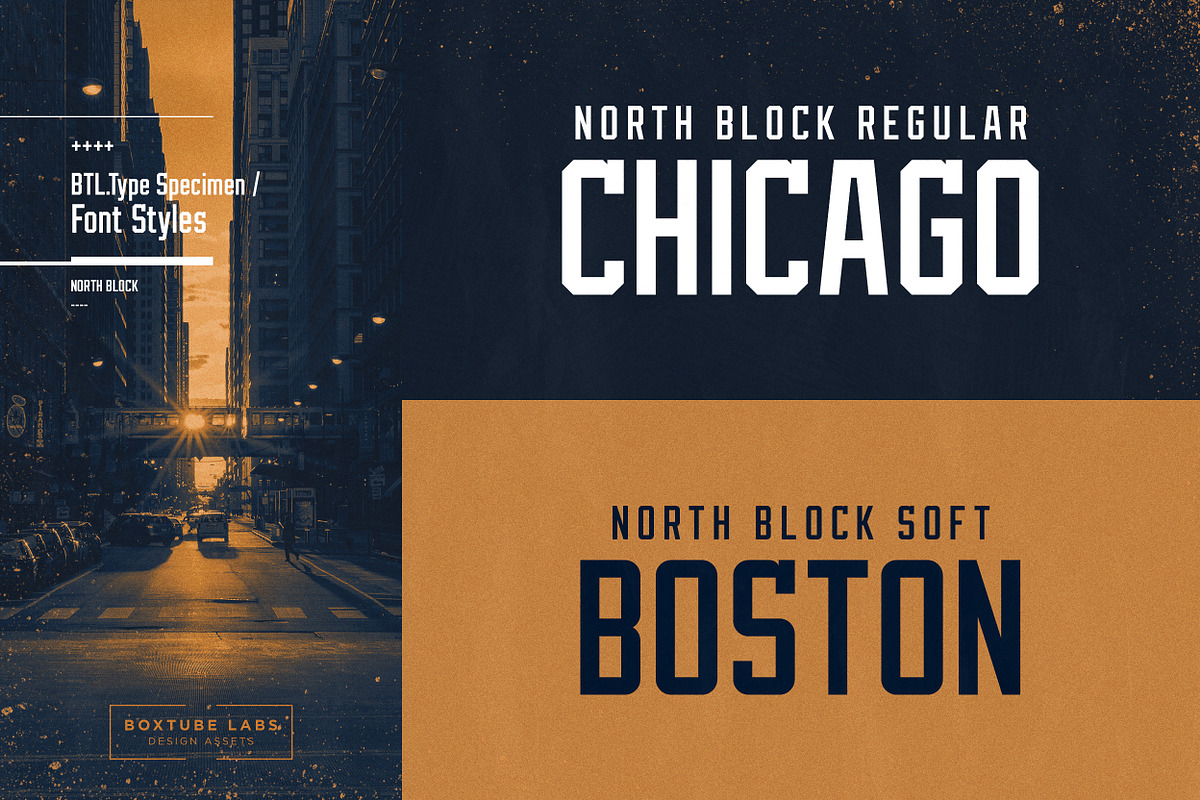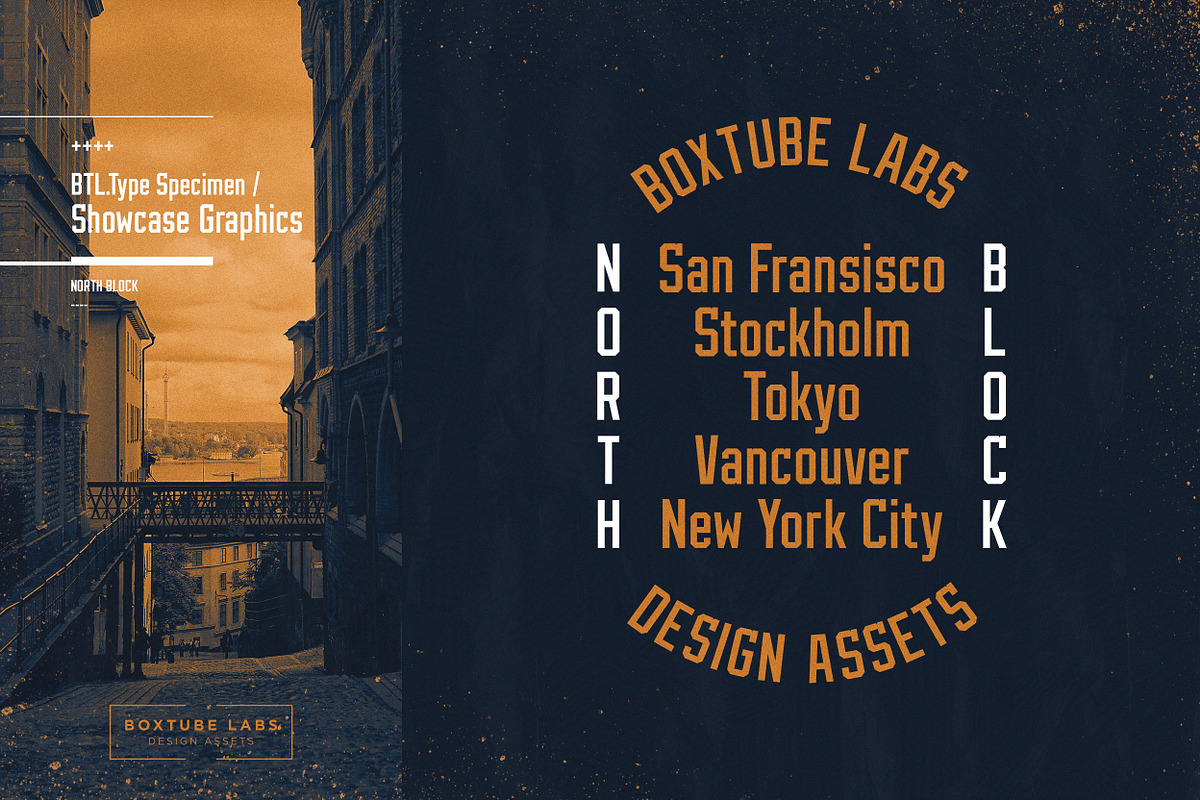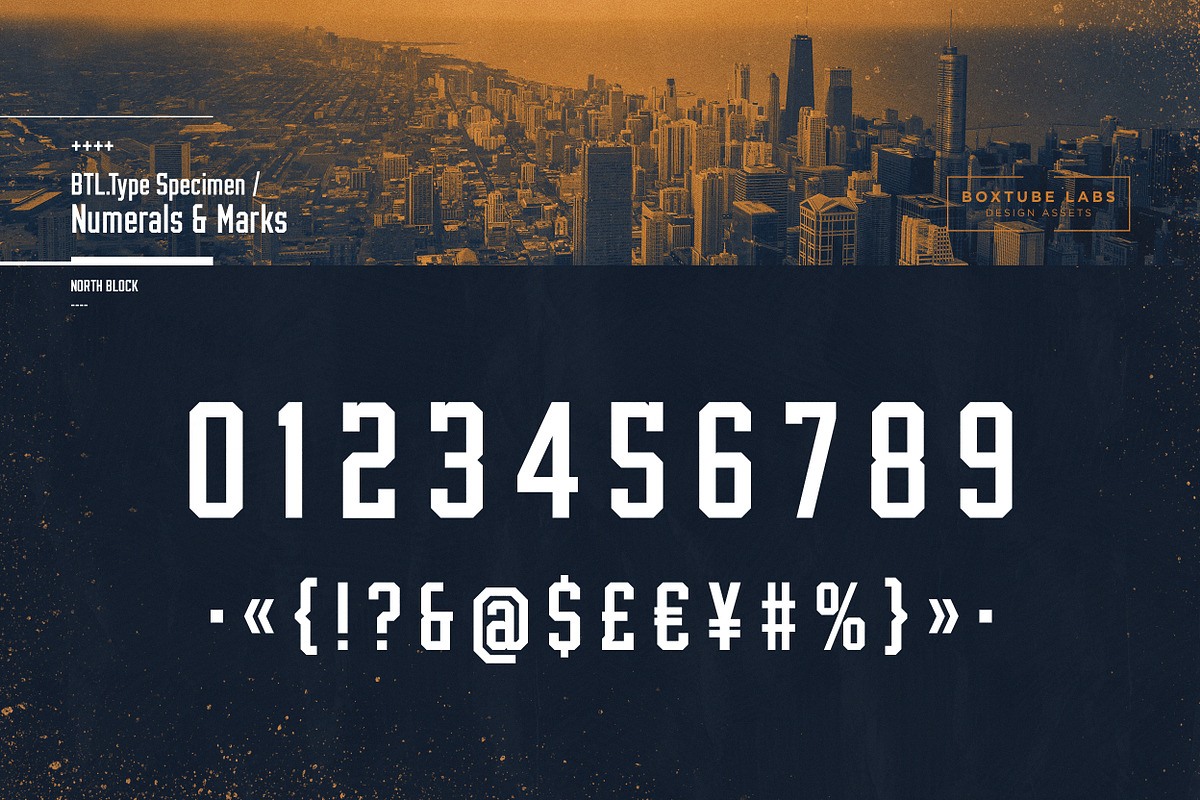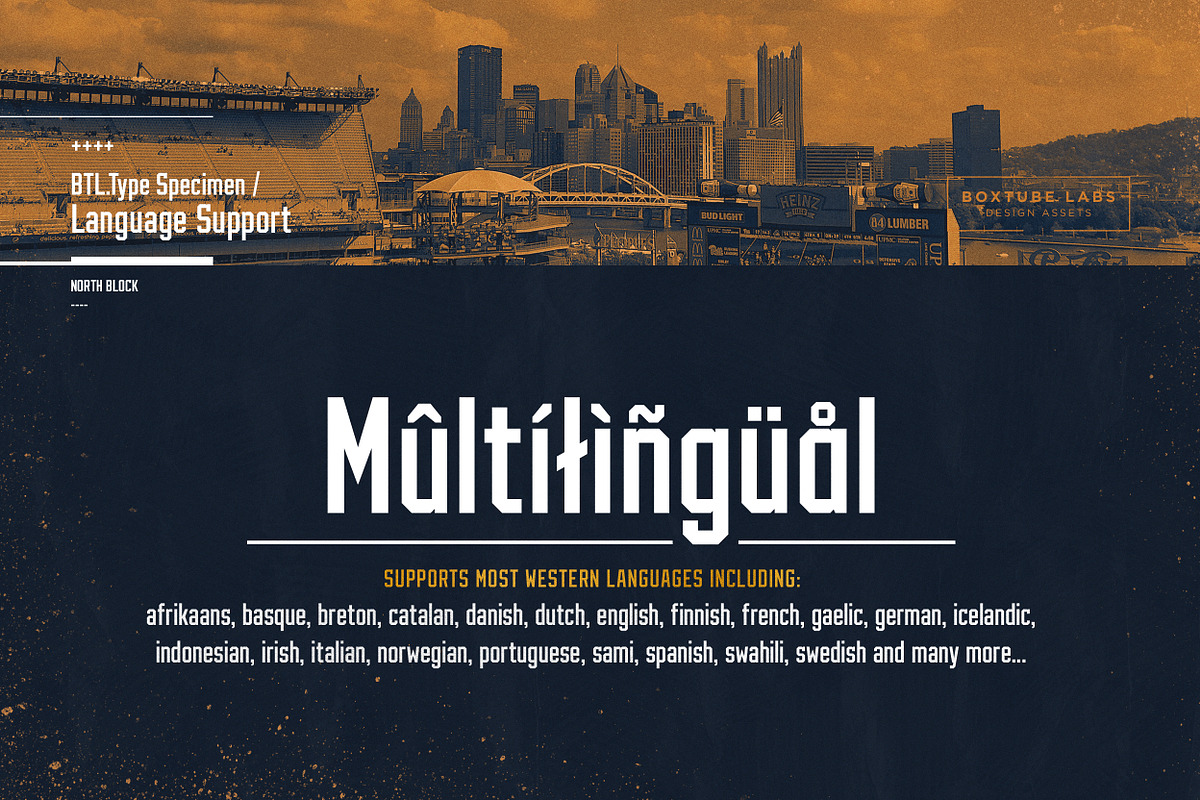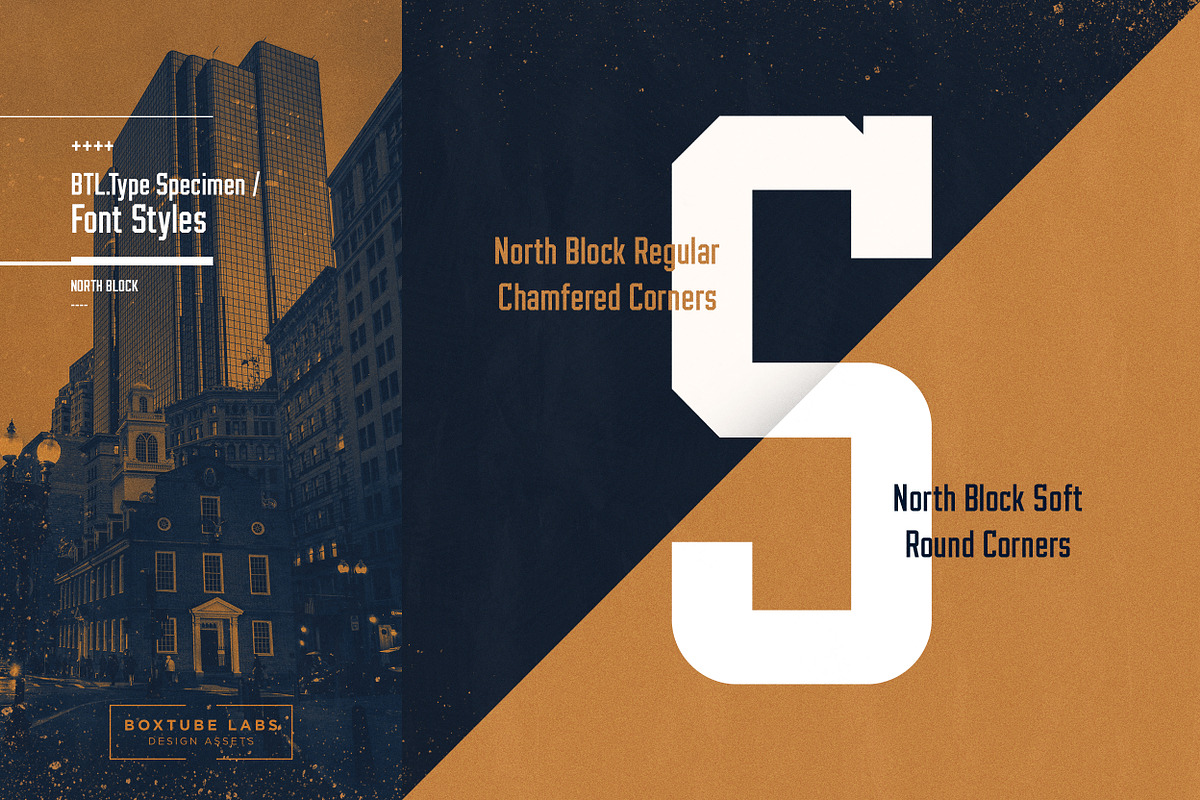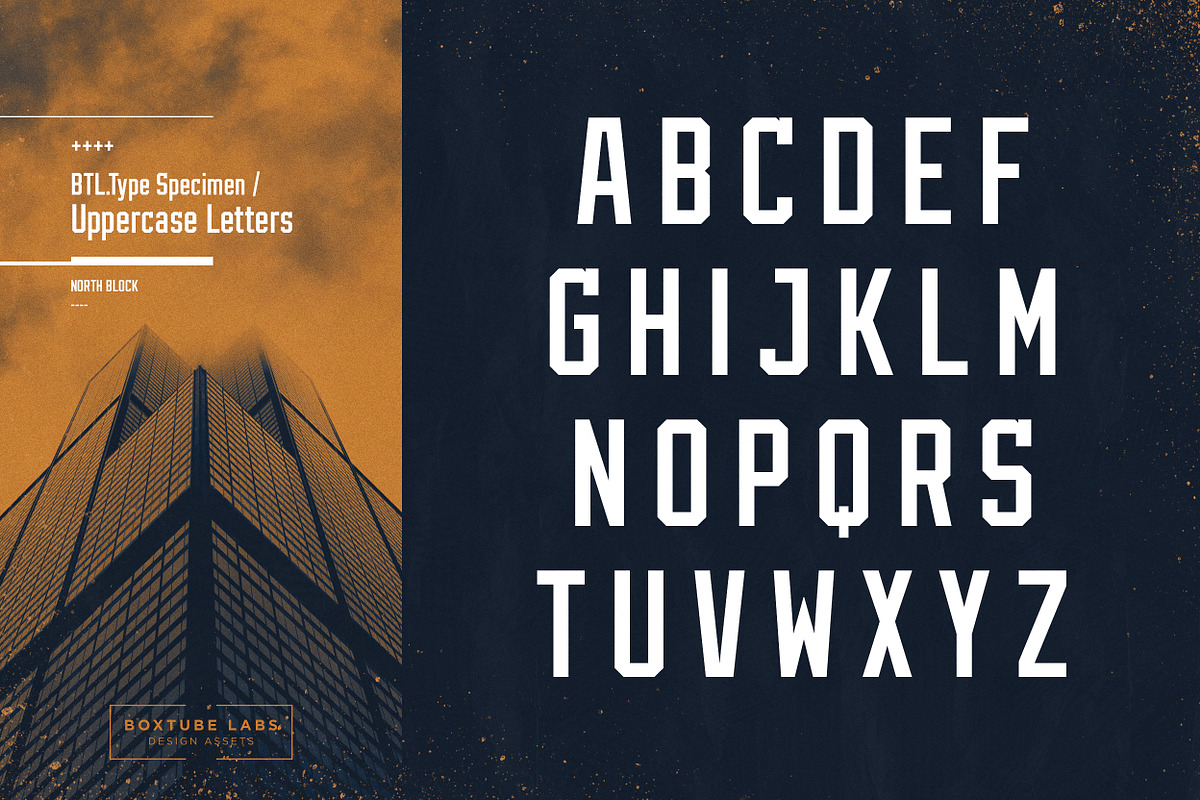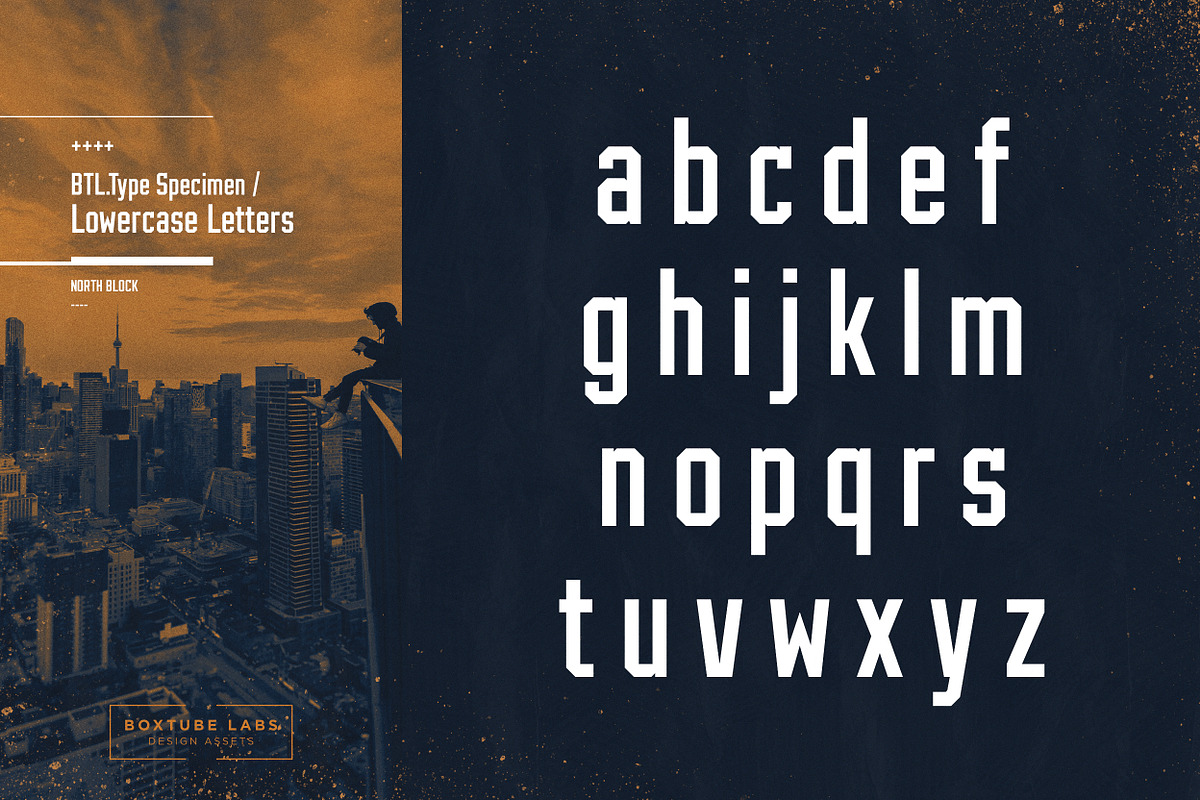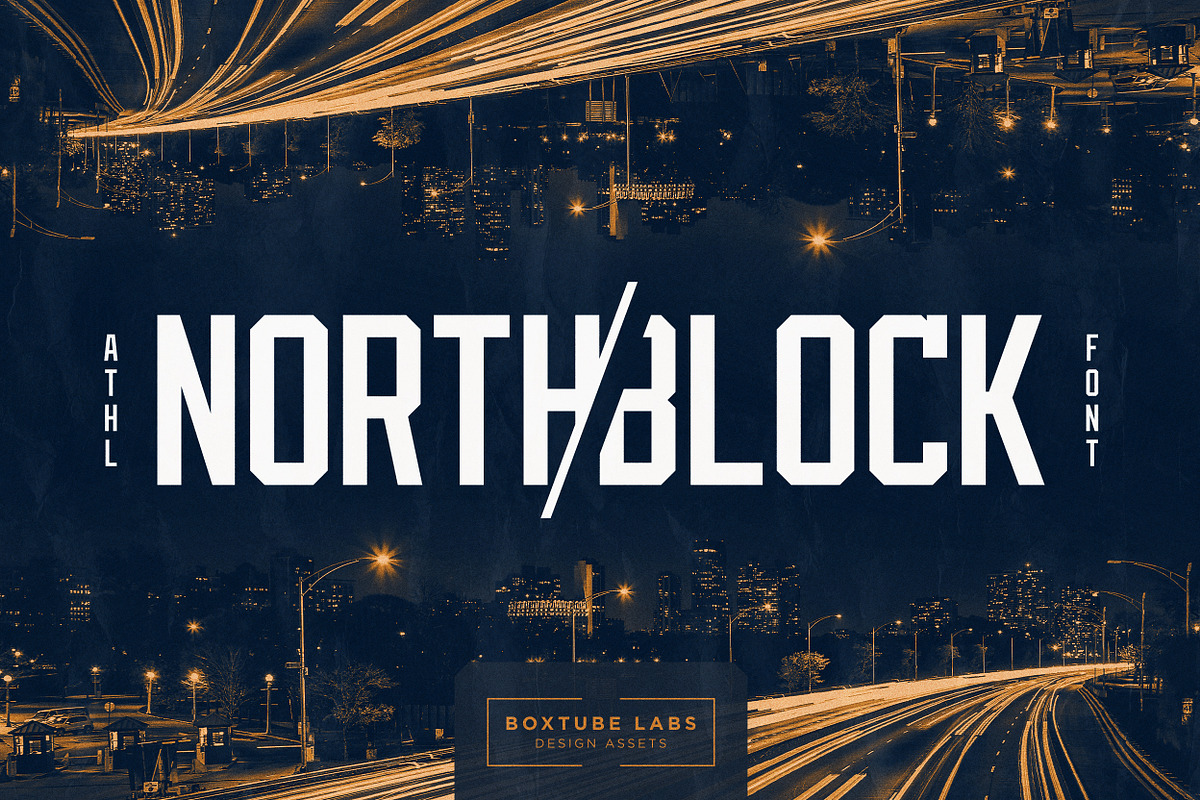
North Block - Display Font
North Block is a true sports branding classic. It's timeless shapes and features will give you an instant athletic feel to your project. North Block Regular got chamfered corners for that powerful and edgy visual performance and North Block Soft has rounded corners for a softer, more subtle approach.
These fonts are perfect for sports logos, branding, posters, apparel design, magazine headlines, labels and so much more.
North Block features a character set with support for most western languages including: Afrikaants, Basque, Breton, Catalan, Danish, Dutch, English, Finnish, French, Gaelic, German, Icelandic, Indonesian, Irish, Italian, Norwegian, Portuguese, Sami, Spanish, Swahili and Swedish.